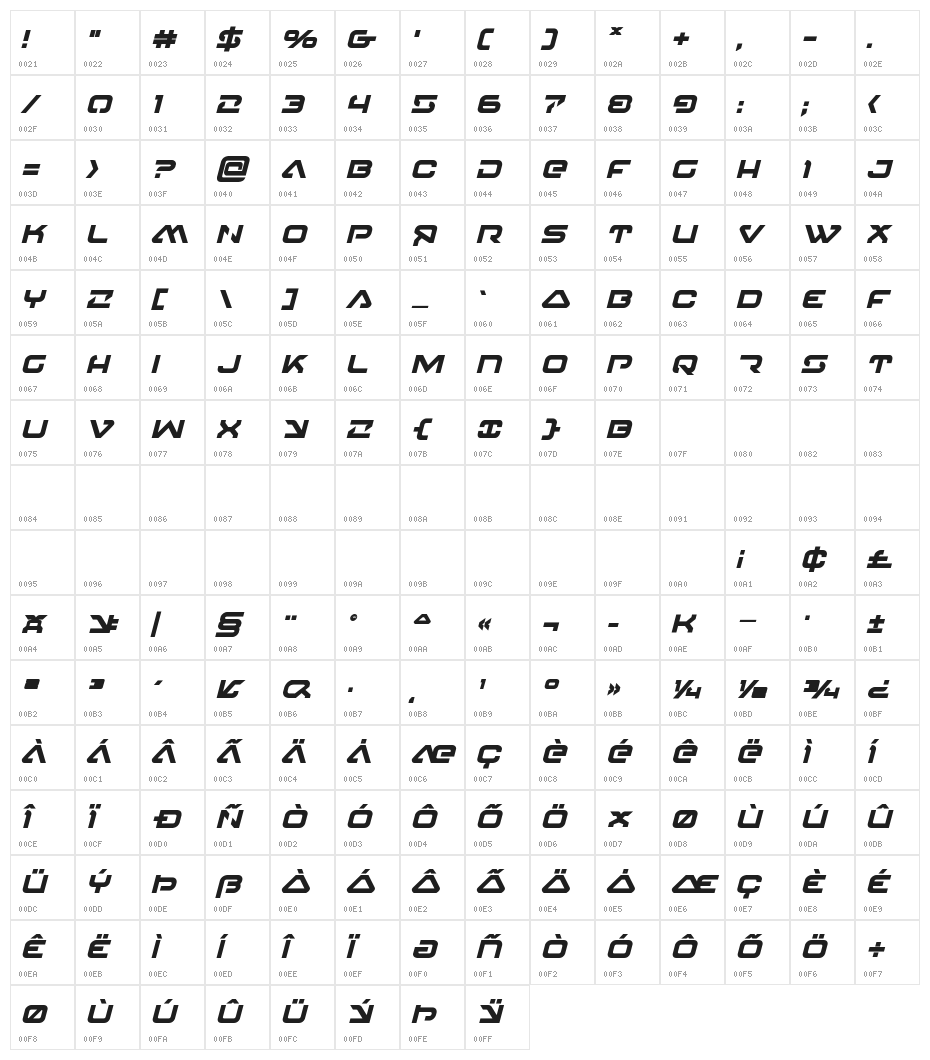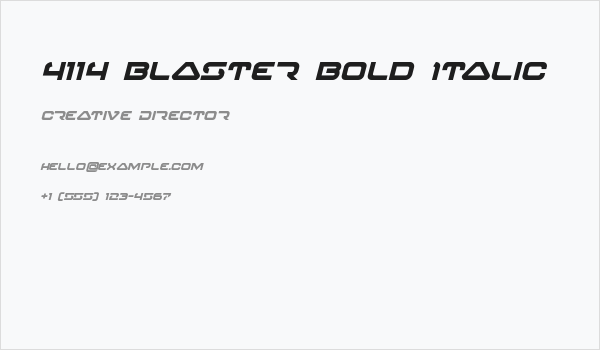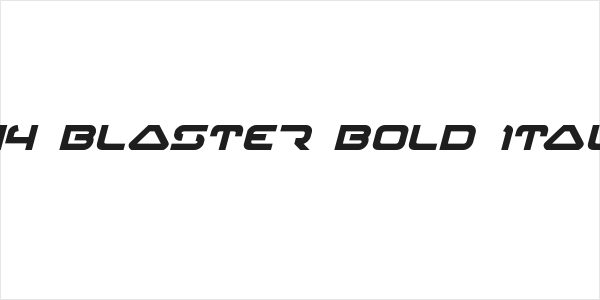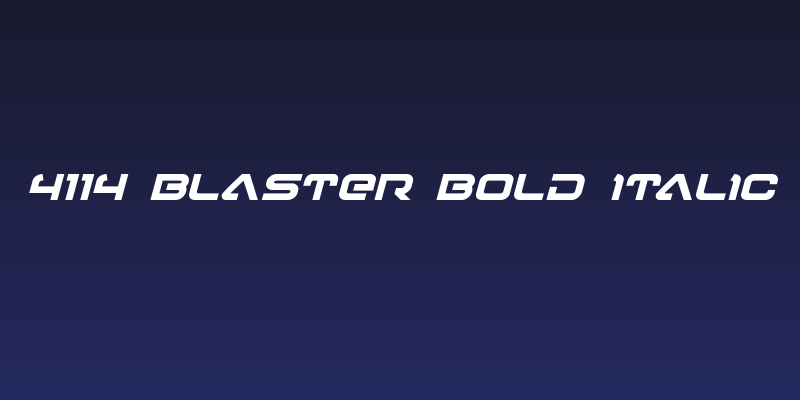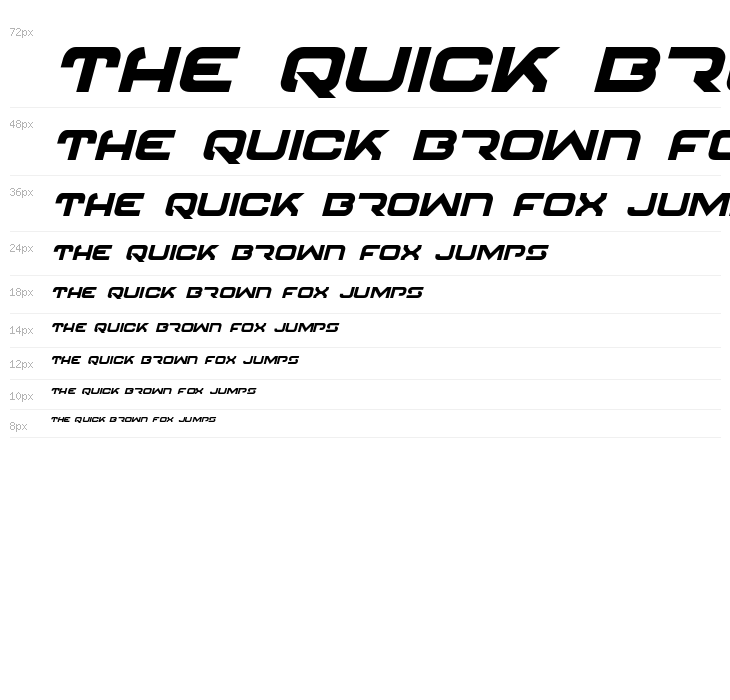
4114 Blaster Bold Italic Font
4114 Blaster Bold Italic Description
This font features a bold and italicized style with a futuristic and dynamic appearance. The characters are designed with sharp angles and a forward-leaning slant, giving a sense of motion and speed. The uppercase letters are particularly striking, with unique cuts and geometric shapes that enhance its modern aesthetic. The lowercase letters maintain the same angular style, ensuring consistency across the typeface. Numbers and special characters are crafted with the same attention to detail, making them suitable for a variety of digital and print applications. The overall design is bold and eye-catching, perfect for projects that require a strong visual impact.
| Proposed Projects | Ideal for sci-fi themed designs, video game titles, tech branding, and dynamic posters. |